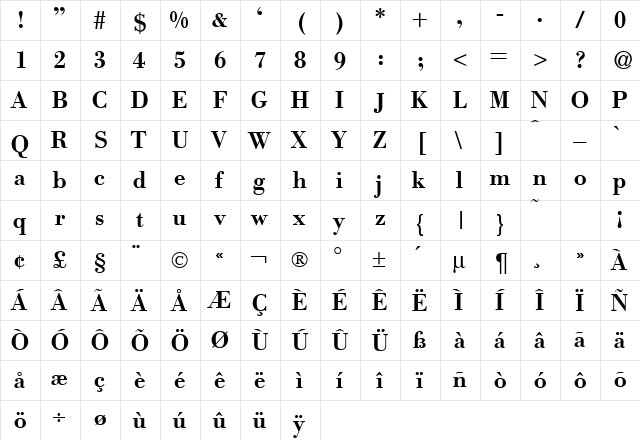
BodinSmall Bold
Design Context for BodinSmall Typeface
BodinSmall takes a measured approach to typography — its balanced proportions and neutral character make it a reliable workhorse for both digital and print work. Its bold stroke weight gives it real presence on the page.